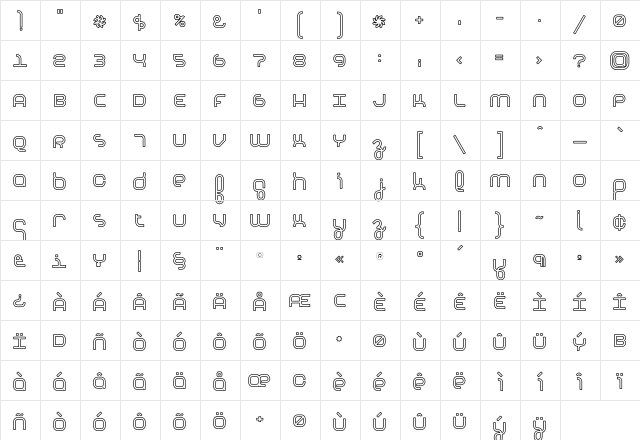
Basis HeavyOutline
Design Context for Basis Typeface
Basis is built around its visual character rather than neutral utility — its distinctive forms are designed to make an impression at display sizes.
Font Pairing: Pair with a clean neutral sans-serif for body copy to let Basis's character lead without overwhelming the composition.
Pro Tip: Treat Basis as the centrepiece of your typographic hierarchy. One strong heading set in a decorative face can carry an entire layout.